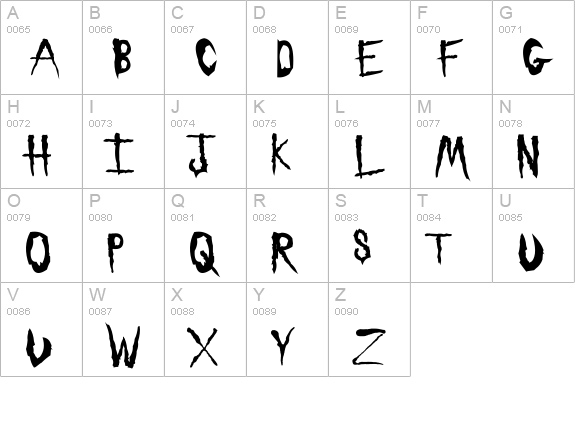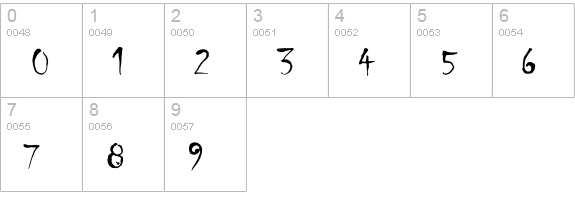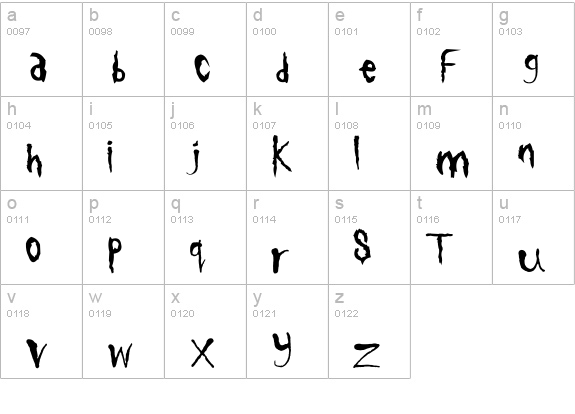
Sickness Font Details
Introducing Sickness font, a unique and captivating typeface that effortlessly combines beauty with a hint of darkness. This one-of-a-kind font is perfect for those seeking to add an edgy and mysterious touch to their designs. Sickness font features bold and sharp letterforms that exude a sense of strength and power. Its unconventional and slightly distorted design creates a mesmerizing visual impact, making it ideal for various creative projects. Whether you're designing a poster, album cover, or logo, Sickness font will instantly grab attention and leave a lasting impression. One of the most remarkable aspects of Sickness font is that it is freely available to download at FontsMarket.com. This means you can easily access and utilize this incredible font without any cost. Unlock your creative potential and let Sickness font elevate your designs to new heights. With its versatile nature, Sickness font can adapt to different styles and themes, making it suitable for a range of projects. Its bold and daring appearance pairs exceptionally well with grunge, rock, or gothic aesthetics, allowing you to create visually striking and unforgettable designs. Don't miss the opportunity to enhance your creative projects with the captivating allure of Sickness font. Head over to FontsMarket.com now and download this remarkable font for free. Embrace the darkness and let Sickness font be the key to unlocking your design's true potential.